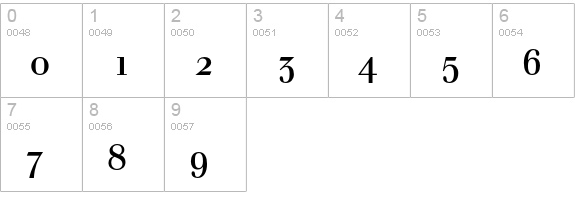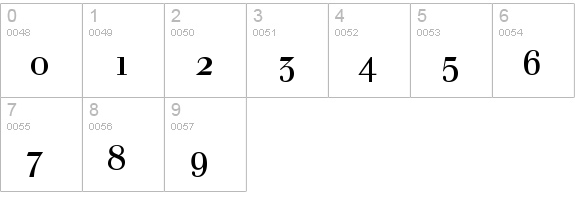
TheodorBeta Font Details
Introducing TheodorBeta, a captivating and versatile font that effortlessly combines modernity with a touch of sophistication. This font is bound to elevate your designs to new heights, making them visually stunning and unforgettable. TheodorBeta boasts a unique blend of clean lines and graceful curves, resulting in a truly eye-catching typeface. Its sleek and contemporary aesthetic allows it to seamlessly adapt to various design projects, whether it be branding, advertising, editorial work, or any creative endeavor that demands attention. This font's extensive character set includes uppercase and lowercase letters, numbers, punctuation marks, and special symbols, ensuring that you have all the tools necessary to express your creativity without limitations. TheodorBeta's meticulous attention to detail and balanced letterforms make it effortlessly legible, both in print and on screen, guaranteeing your message is conveyed with utmost clarity. But what makes TheodorBeta even more remarkable is the fact that it is available for free! Yes, you heard it right - this exceptional font can be freely downloaded at FontsMarket.com. We believe that creativity should never be hindered by financial barriers, and by offering TheodorBeta for free, we aim to empower designers, artists, and enthusiasts alike to bring their visions to life without any restrictions. So, why wait? Discover the endless possibilities that TheodorBeta brings to your designs. Download it now for free at FontsMarket.com and embark on a design journey that is sure to captivate and inspire.